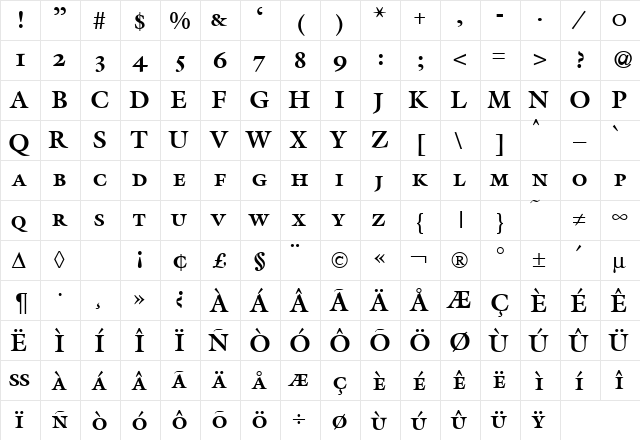
MatthewSmc Bold
Design Context for MatthewSmc Typeface
MatthewSmc is a composed and adaptable typeface that performs quietly and consistently across a wide range of design contexts. The heavy weight commands attention and anchors typographic hierarchies.